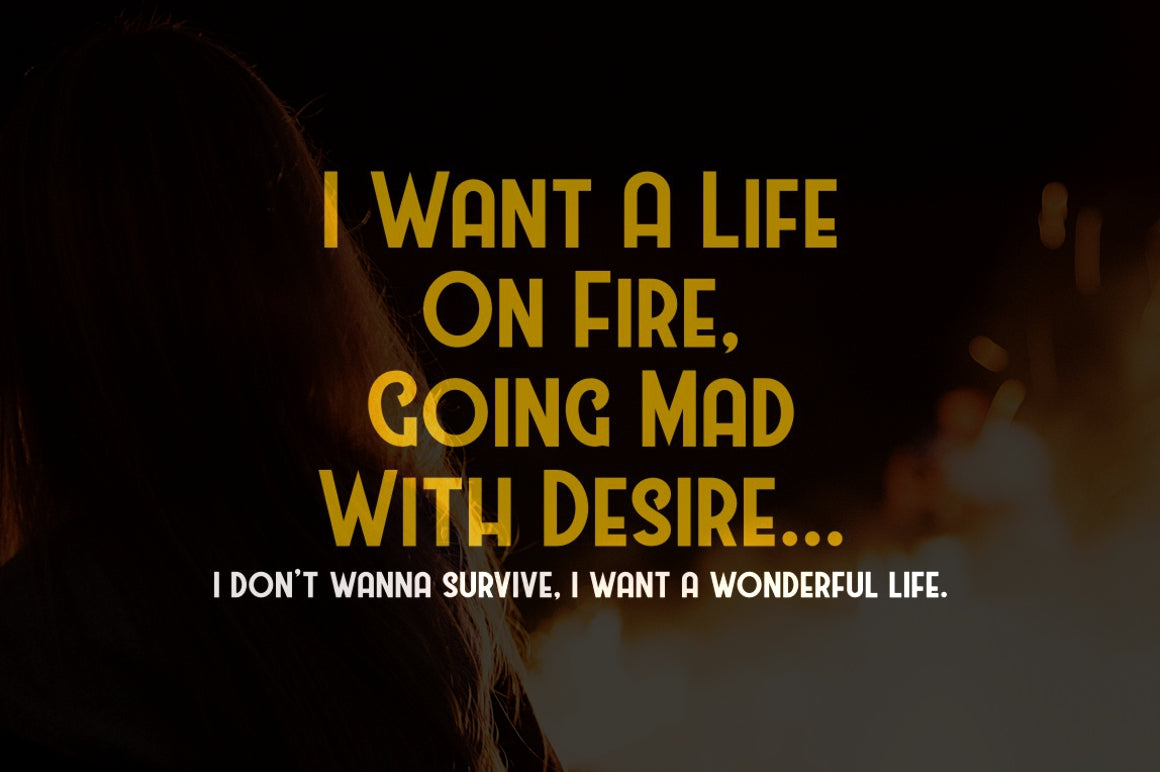
Free Westmeath Font
Take a look at this dazzling free westmeath font. Pixelify has created this amazing and beautiful free typeface. This is absolutely fancy font so you can easily make world-class designs.